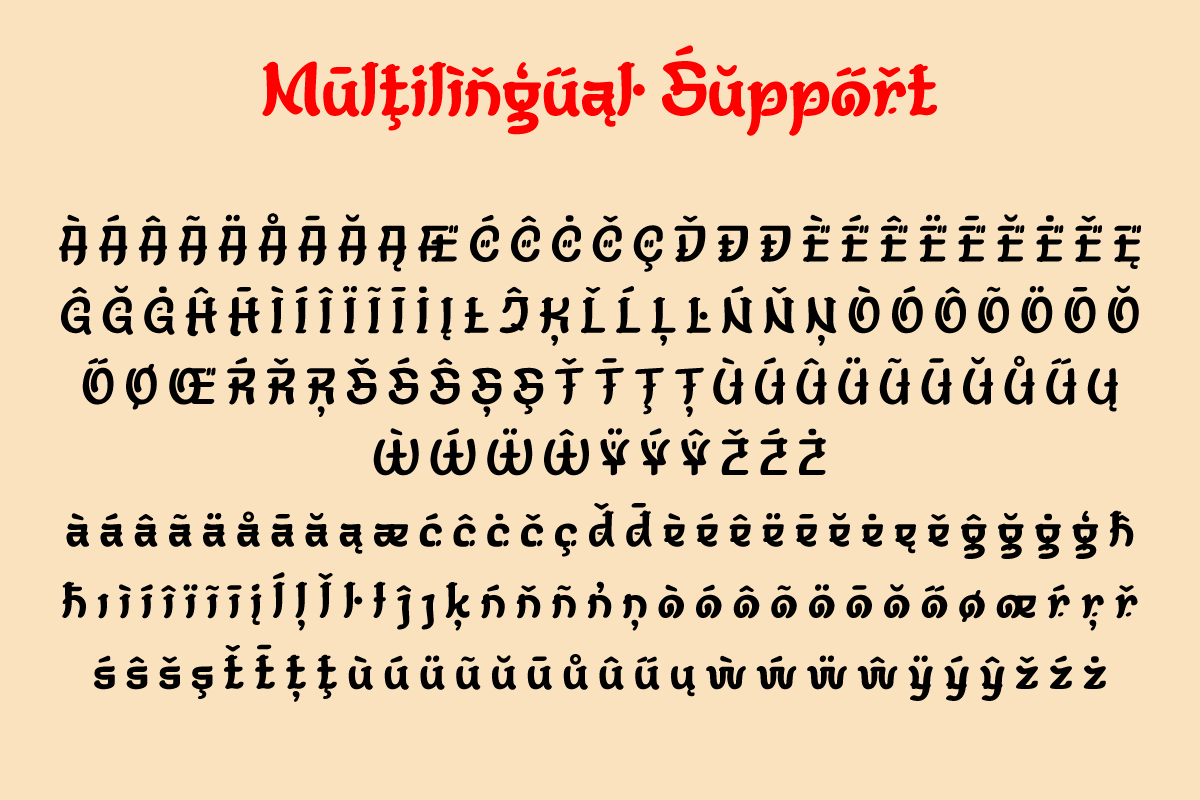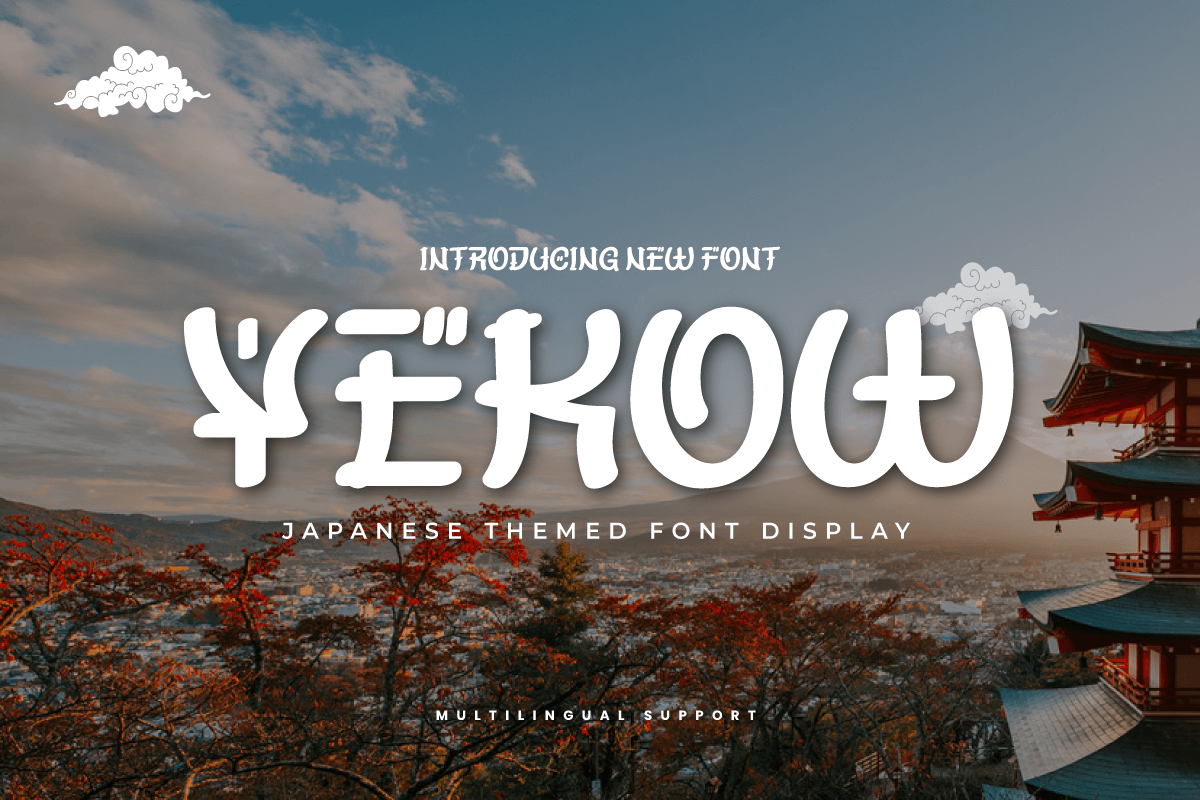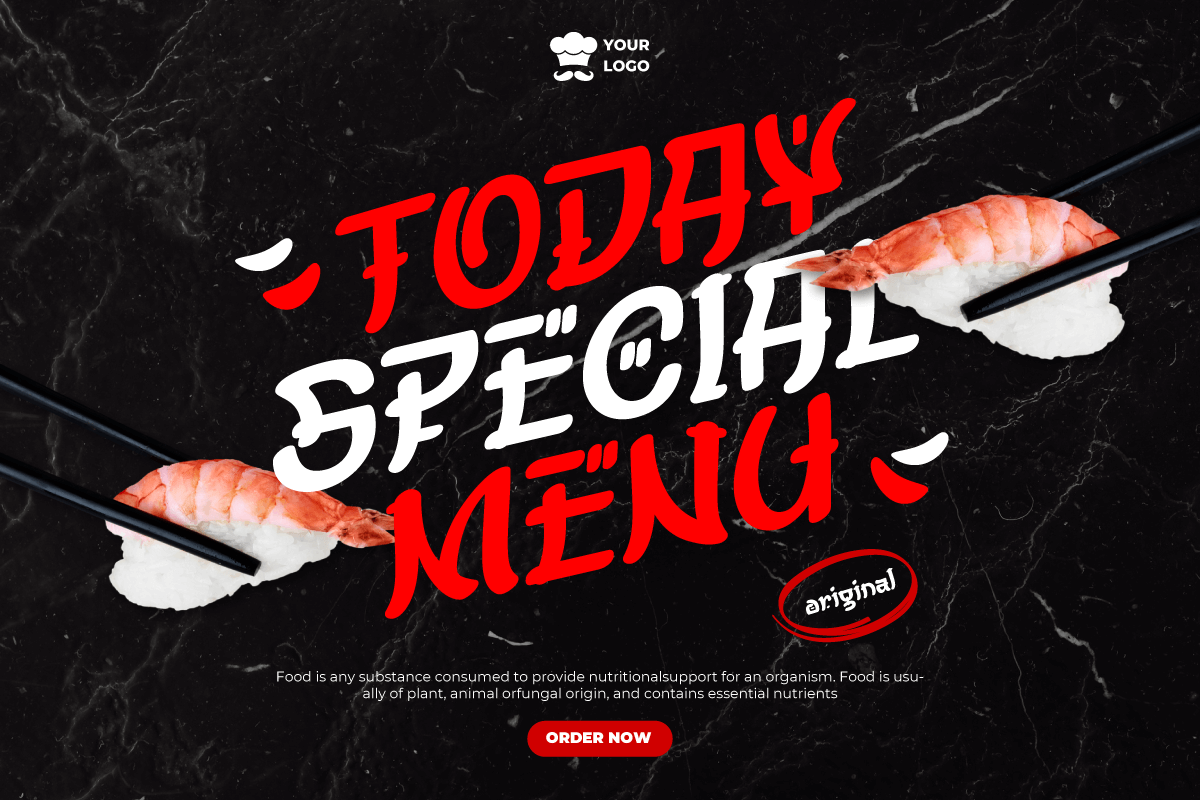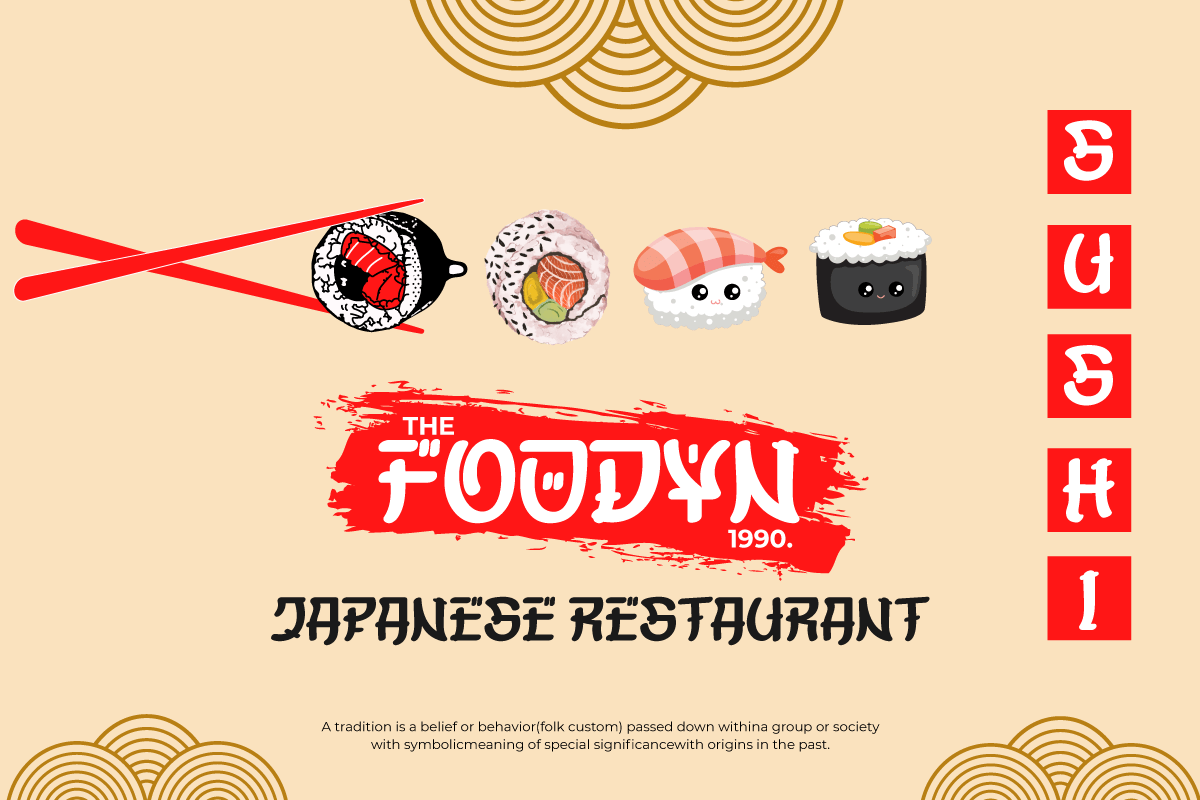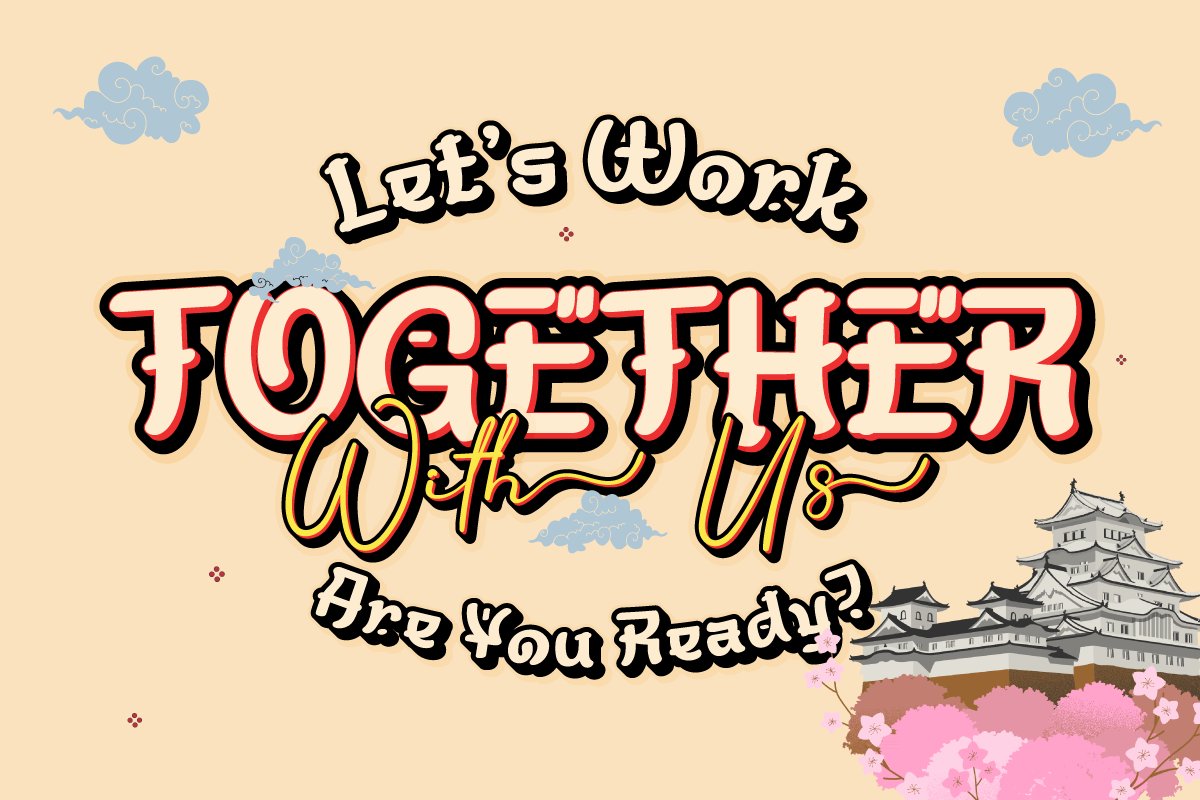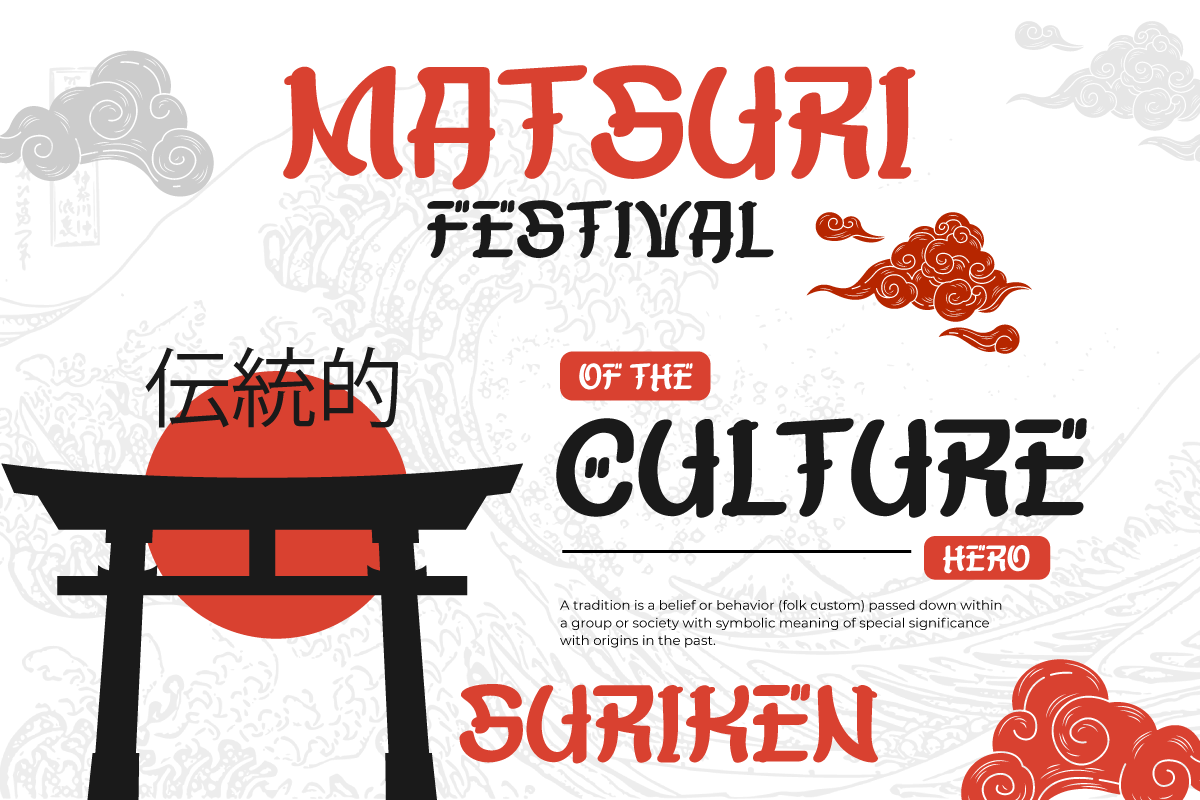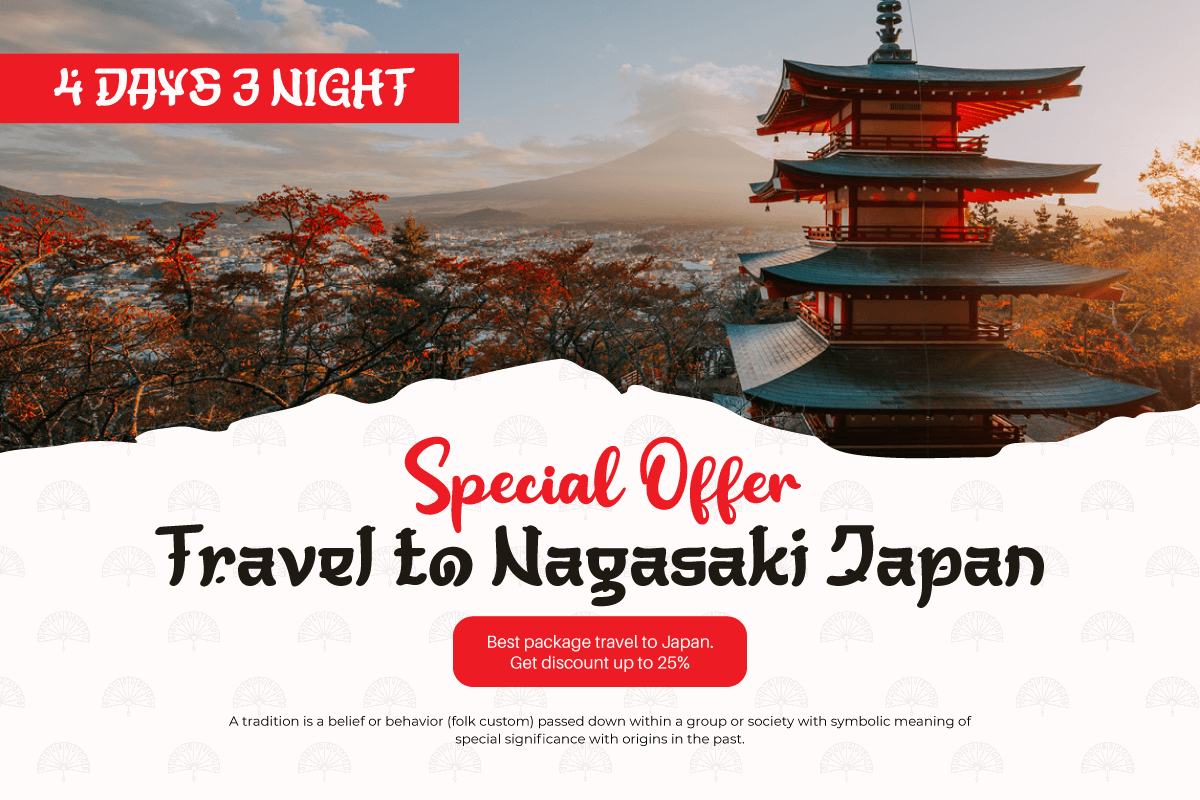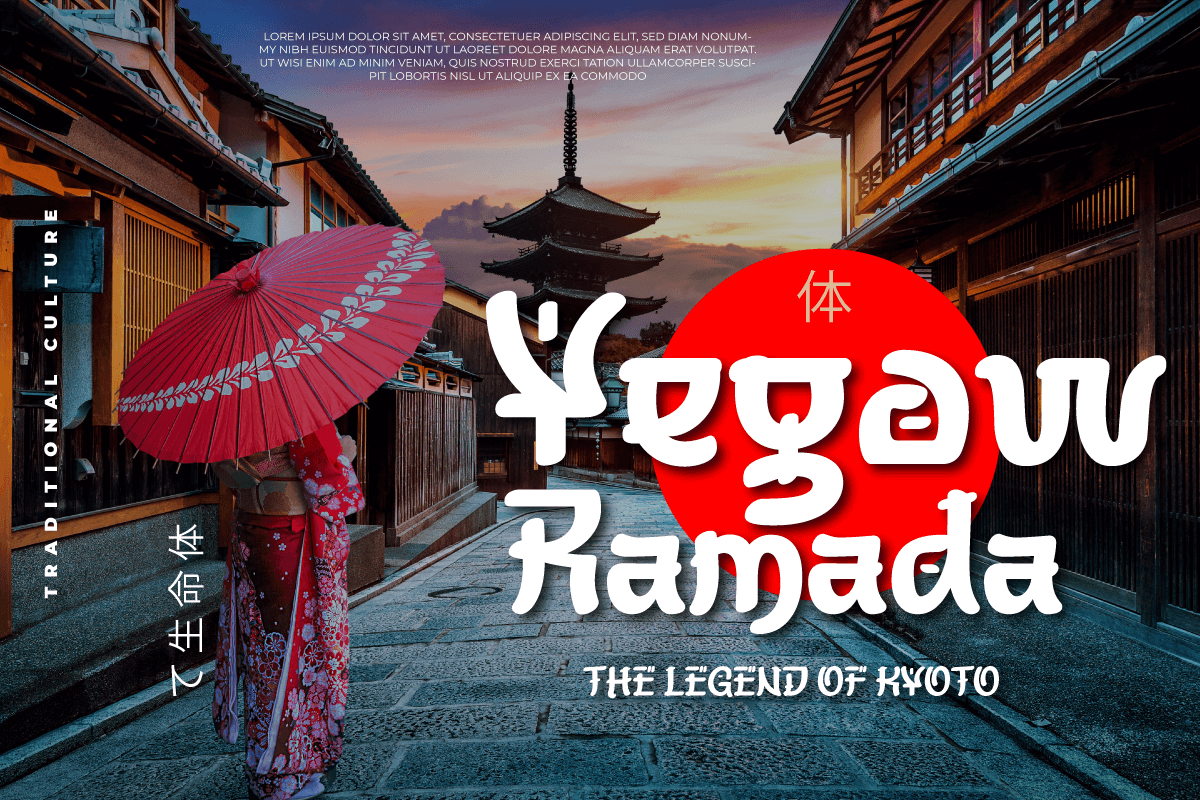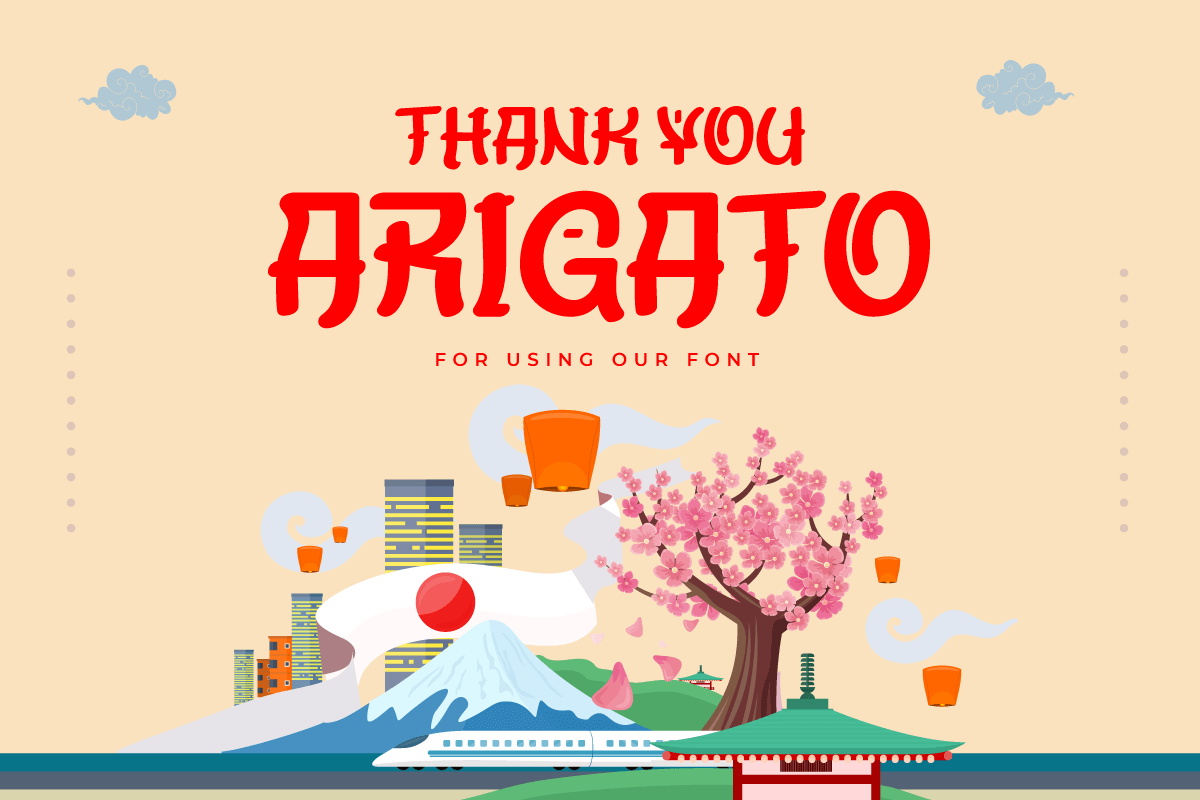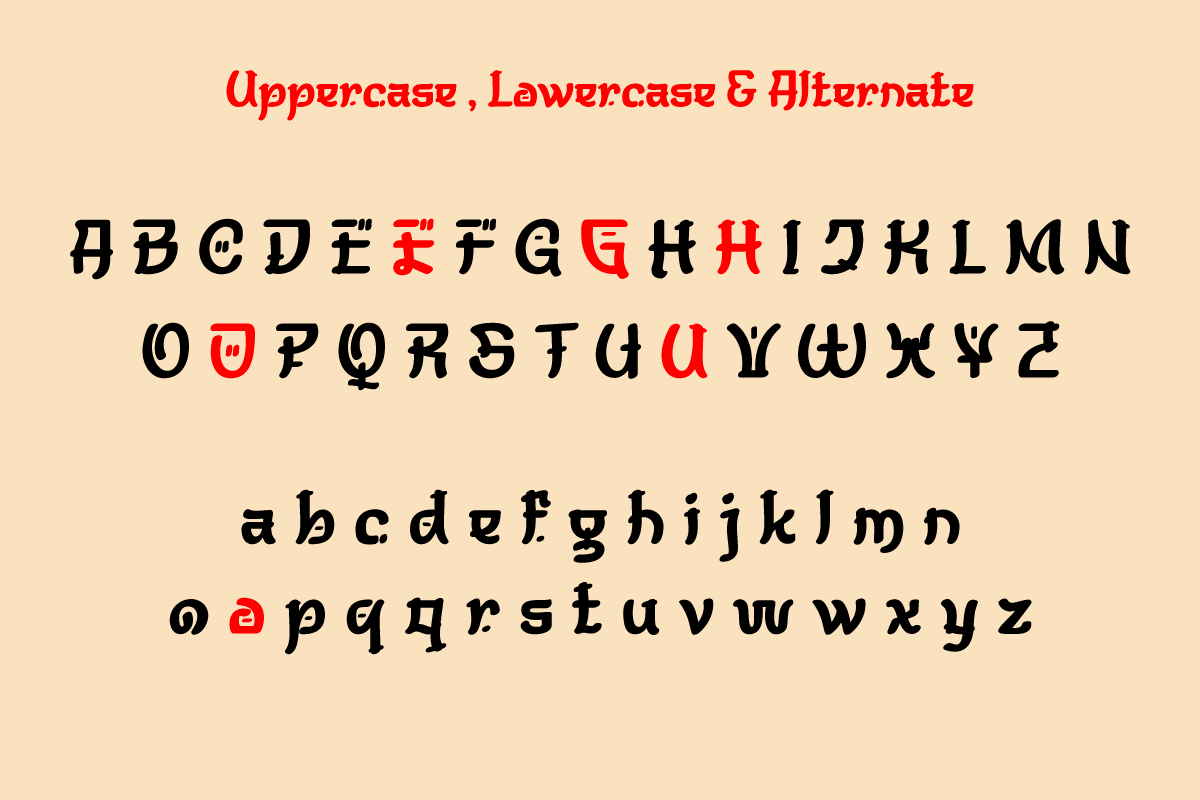
YEKOW – Japanese Style Font
Yekow is a typeface with a Japan Style motif, making it ideal for projects that require a distinctly Japanese and Asian aesthetic. This font’s elegant and unique design will add an authentic and appealing vibe to your work.
The Yekow font family includes a wide range of characters inspired by traditional Japanese characteristics, combining beauty with a contemporary touch. Each character is rich with delicate and vivid features, creating an enticing environment and exuding Japanese culture’s charm.
You may add a genuine and distinctly Japanese ambiance to your advertising materials, posters, websites, and other projects by utilizing the Yekow font. This font will make an immediate impression and capture the attention of potential customers.
- Fonts include Multilingual support